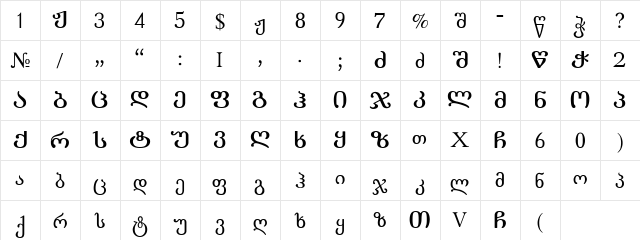
literaturuly Regular Font Preview
literaturuly Regular
Design Context for literaturuly Typeface
literaturuly takes a measured approach to typography — its balanced proportions and neutral character make it a reliable workhorse for both digital and print work.